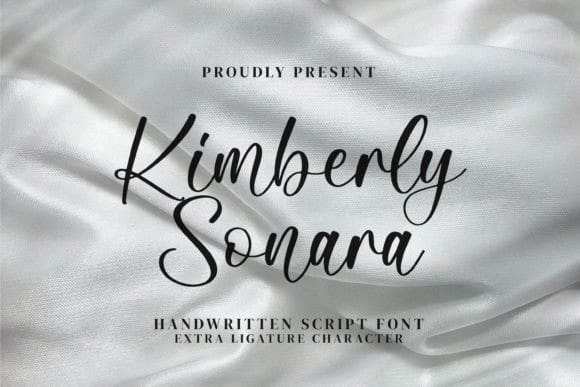
Kimberly Sonara Font
Kimberly Sonara Font is a romantic and sweet calligraphy typeface with characters that dance along the baseline. It will add a luxury spark to any design project that you wish to create! This font is PUA encoded which means you can access all of the amazing glyphs and ligatures with ease!